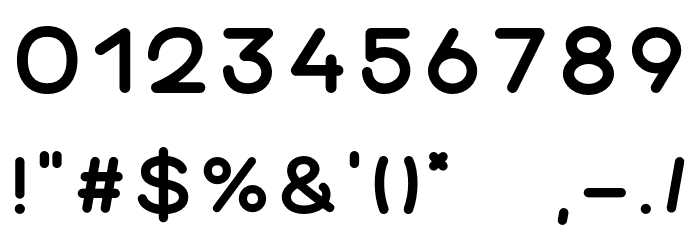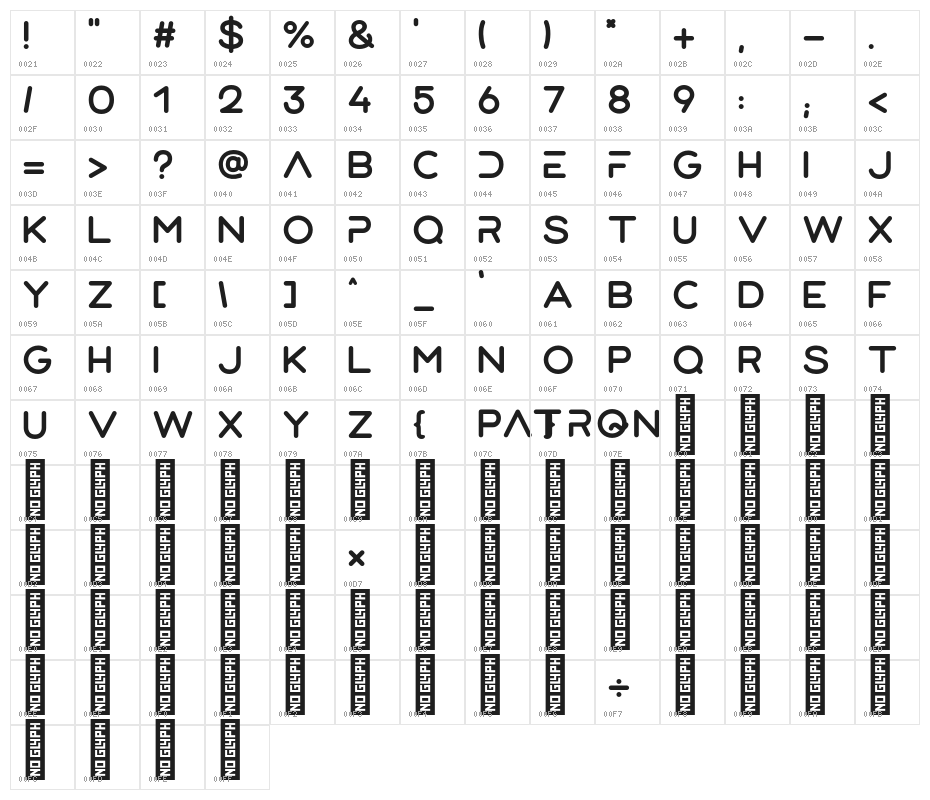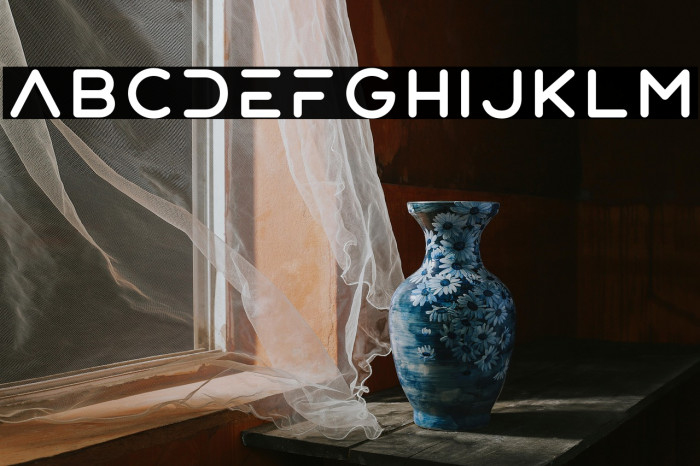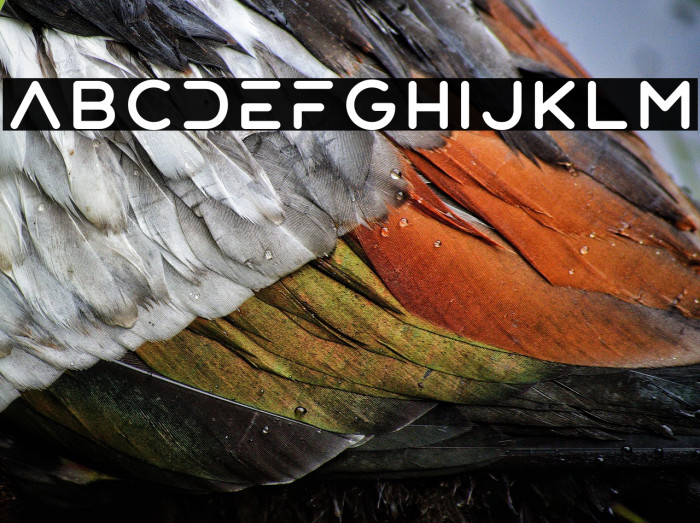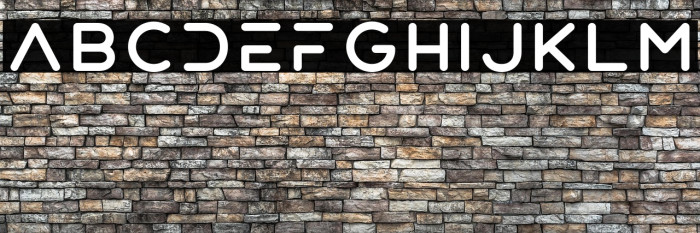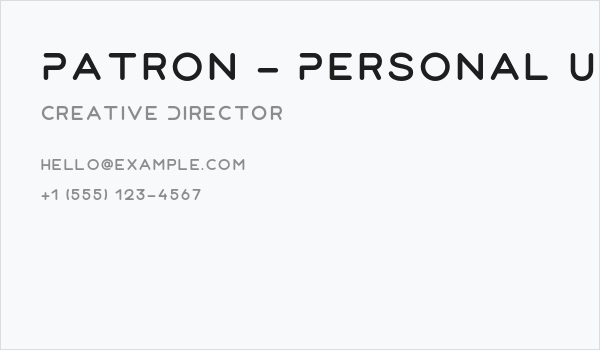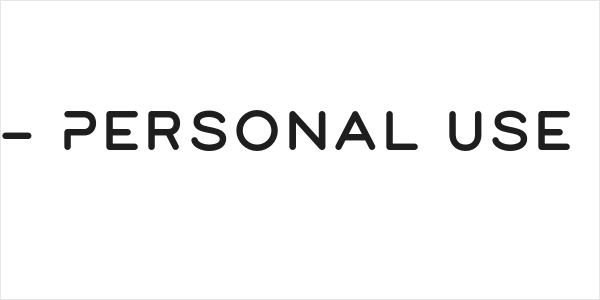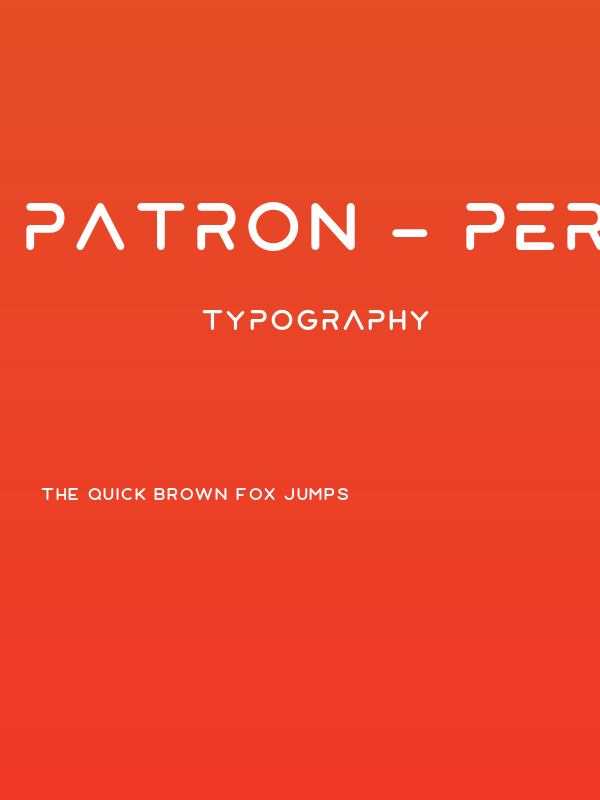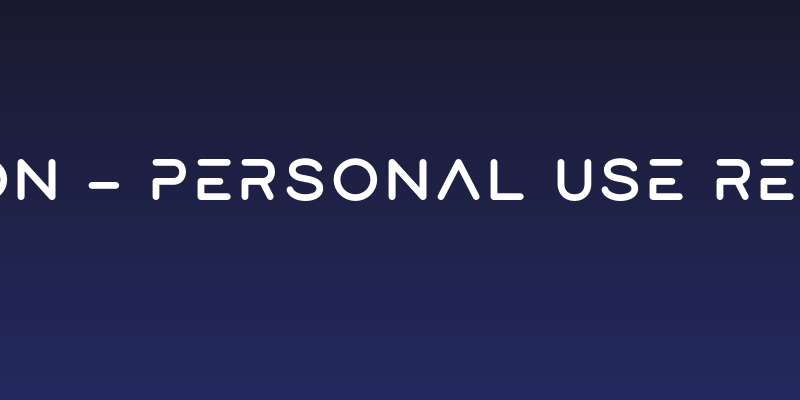
Patron - Personal Use Regular Font
Patron - Personal Use Regular Description
This font features a clean, geometric design with rounded edges, providing a modern and approachable appearance. The uniform stroke width and absence of serifs contribute to its sleek and contemporary feel. The characters are well-proportioned, with a consistent height and width, ensuring readability and balance. The numerals and special characters maintain the same style, offering a cohesive look across all elements. This font is versatile, suitable for both digital and print media, and can be used in various design contexts.
| Proposed Projects | Ideal for branding, digital interfaces, signage, and editorial design due to its clarity and modern aesthetic. |